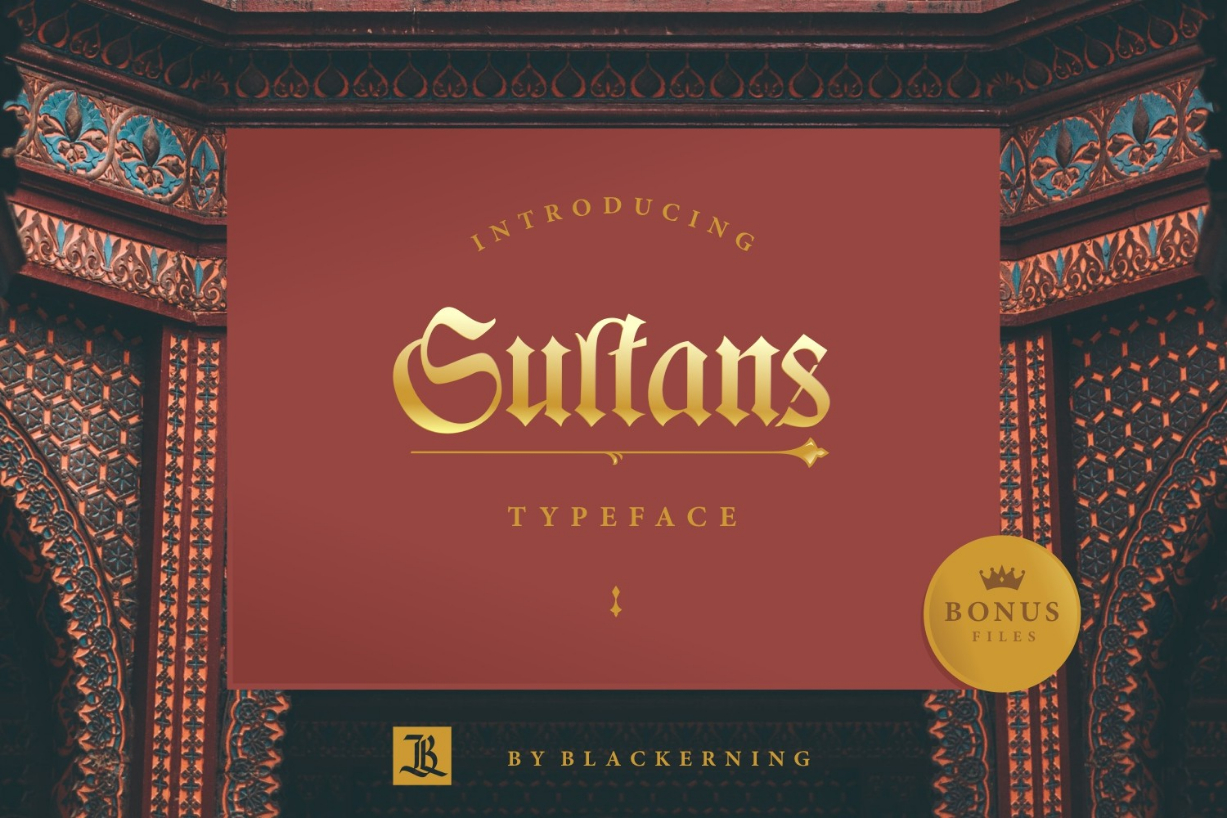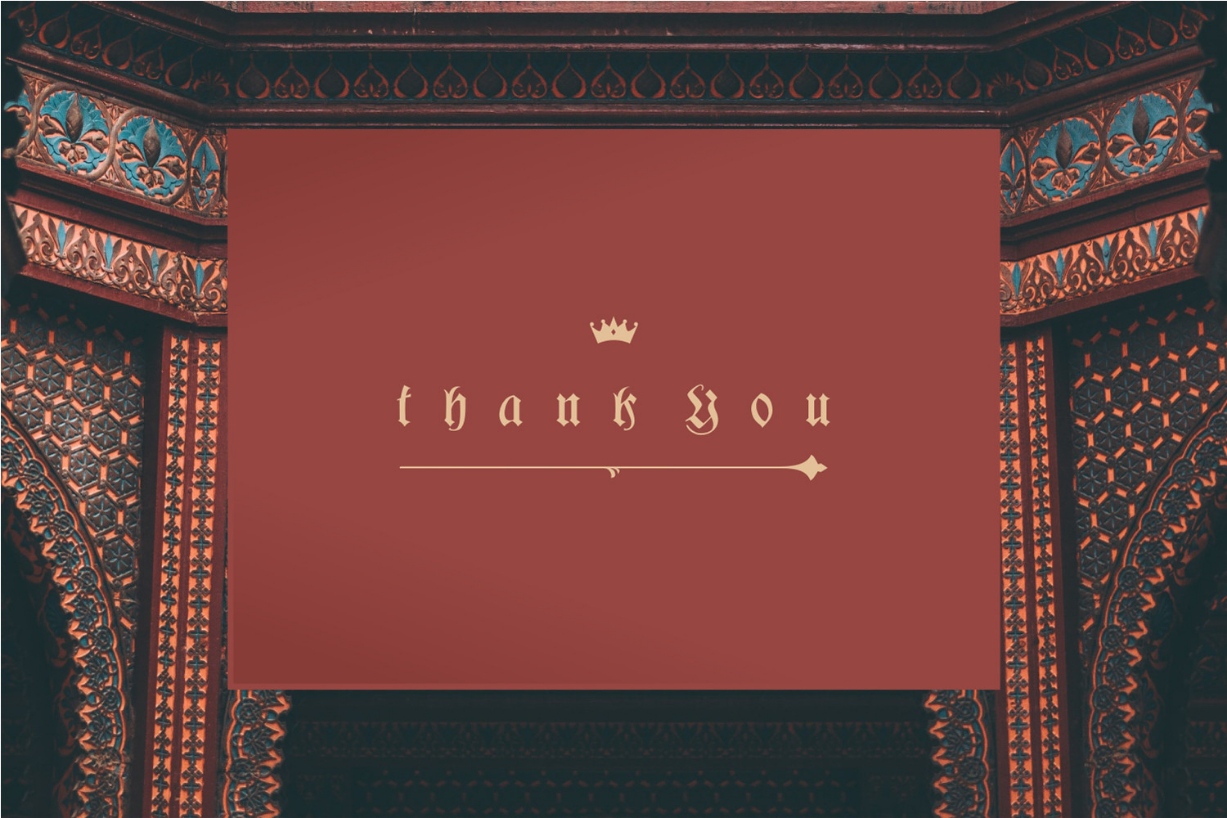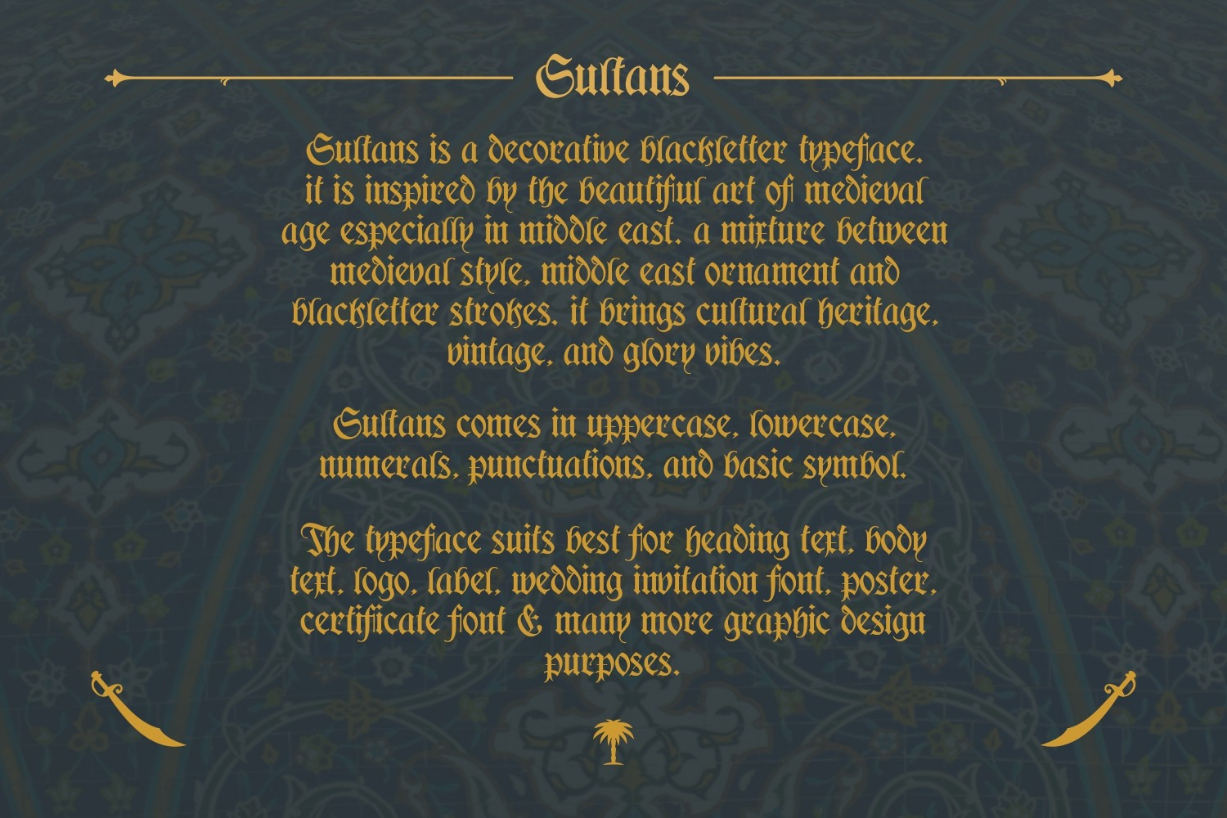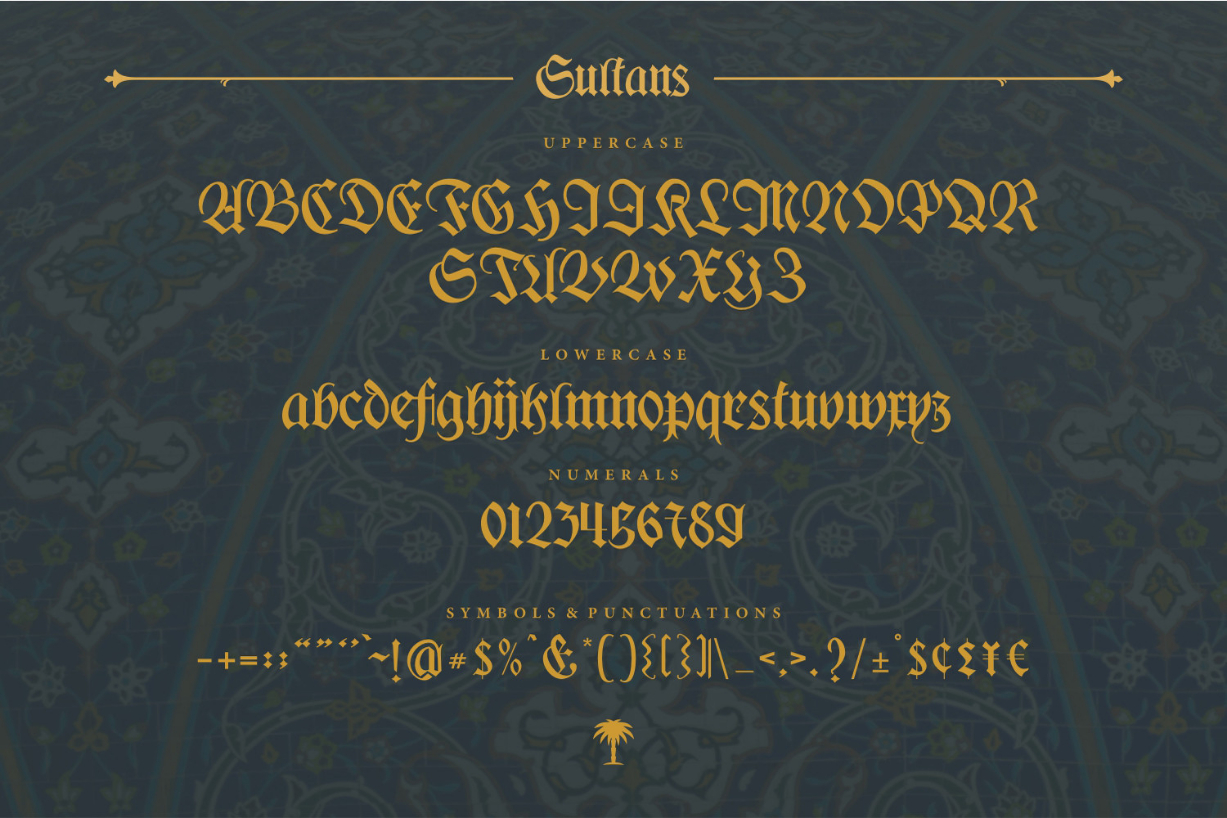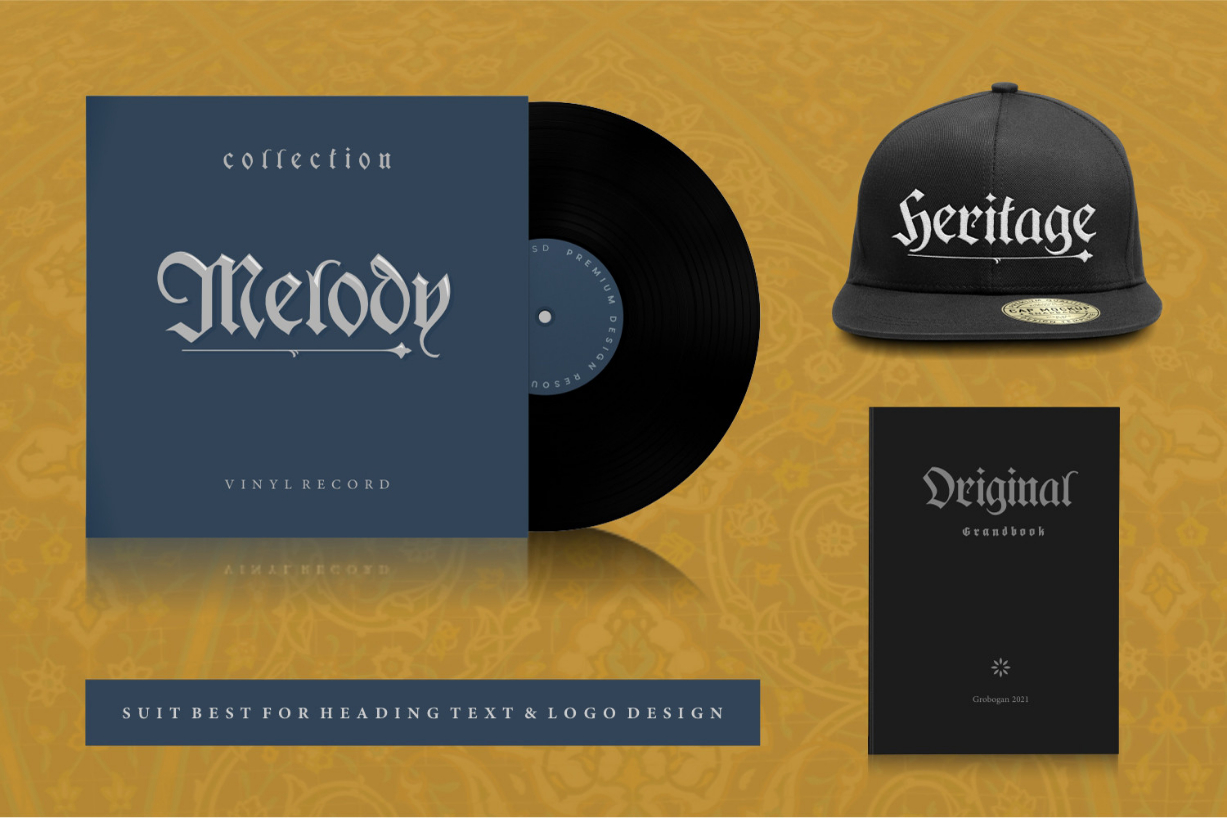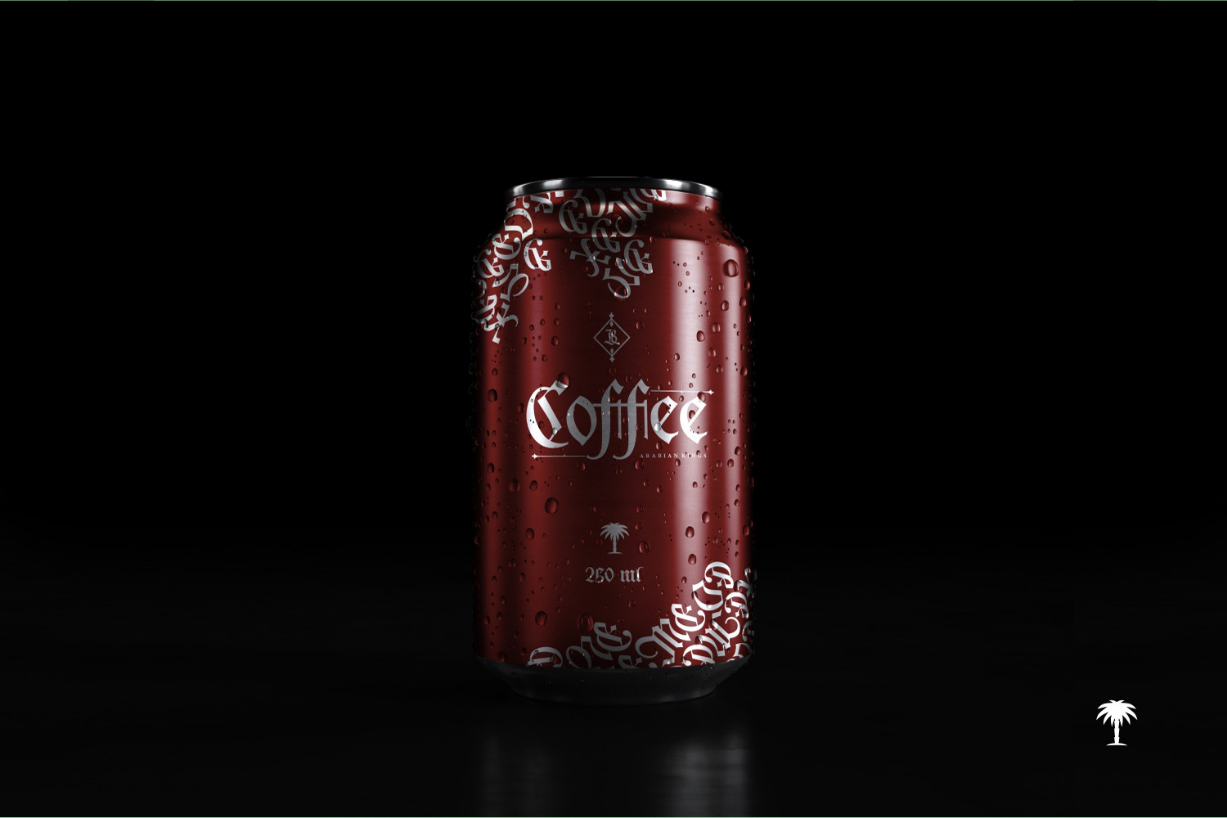
Sultans Font
About Sultans Font
Sultans is a bold and elegant blackletter font. Whatever the topic, this font will be a wonderful asset to your font library, as it has the potential to enhance any creation.